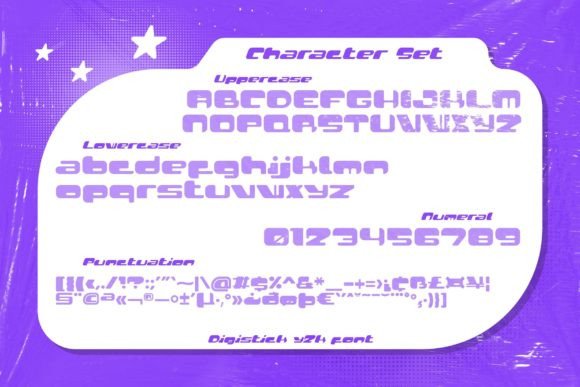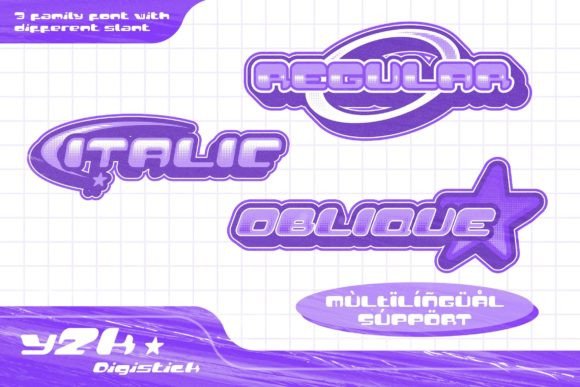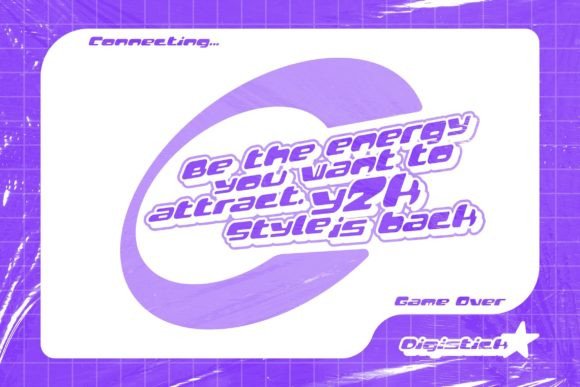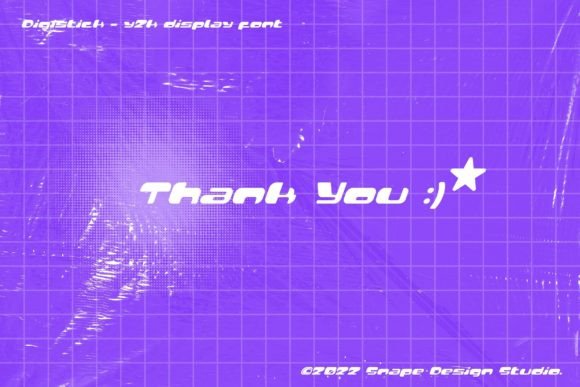
Introducing Digistick Font: The Ultimate Choice for Futuristic Designs
In the realm of digital design, fonts play a crucial role in conveying the intended message and aesthetic of a project. For those seeking a font that embodies the essence of futurism, technology, and space, Digistick Font is an exceptional choice. Inspired by the Y2K design era, this font is perfect for a wide range of applications, from technology and digital themes to movies, documentaries, and more.
The Y2K Influence on Digistick Font
The Y2K design era, which emerged in the late 1990s and early 2000s, was characterized by its bold, vibrant, and futuristic aesthetic. This era saw a significant influence on various aspects of pop culture, including music, fashion, and graphic design. Digistick Font draws heavily from this era, incorporating elements that reflect the nostalgia and forward-thinking attitude of Y2K design.
Music and pop culture played a pivotal role in shaping the Y2K aesthetic. The era was marked by the rise of electronic dance music (EDM), which often featured futuristic and space-themed visuals. Digistick Font captures the essence of this era, making it an ideal choice for designers looking to evoke a sense of nostalgia and futurism in their work.
Perfect for Technology, Digital, and Space Galaxy Themes
Digistick Font is specifically designed to excel in technology, digital, and space galaxy themes. Its futuristic design and bold aesthetic make it perfect for projects that require a sense of innovation and forward thinking. Whether you’re working on a logo, website, or marketing materials for a tech company, Digistick Font is sure to make a lasting impression.
The font’s versatility also makes it suitable for a wide range of digital applications, including video games, mobile apps, and software interfaces. Its clear and legible design ensures that it remains effective even at small sizes, making it perfect for use in user interfaces and other digital applications.
Suitable for Movies, Documentaries, Films, Logos, Posters, Games, Book Covers, and More
Digistick Font’s versatility extends beyond technology and digital themes, making it suitable for a wide range of creative projects. Its bold and futuristic design makes it perfect for:
- Movies and documentaries: Add a touch of futurism to your film’s title sequence or promotional materials.
- Logos and branding: Create a lasting impression with a bold and memorable logo.
- Posters and flyers: Grab attention with a striking headline or title.
- Games: Enhance your game’s UI and marketing materials with a futuristic font.
- Book covers: Add a touch of science fiction or futurism to your book’s cover design.
Adding Digistick Font to Your Creative Projects
When using Digistick Font, feel free to experiment with different sizes, colors, and styles to find the perfect combination for your project. Its versatility and legibility make it suitable for use in a wide range of applications, from large headlines to small body text.
Digistick Font is a powerful tool for designers and crafters looking to add a touch of futurism to their creative projects. Its bold and futuristic design, inspired by the Y2K design era, makes it perfect for technology, digital, and space galaxy themes. With its versatility and legibility, Digistick Font is suitable for a wide range of applications, from movies and documentaries to logos, posters, and games. Add Digistick Font to your creative toolkit and watch your designs stand out!